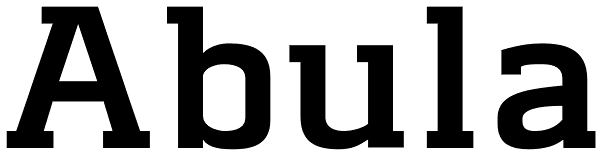
Abula
Structurally inspired by Modern font, Abula is distinctive for its two options: Original Slab Serif and Organic Slab Serif. The Latter is special for it illustrates the designer’s attempt to genetically modify the font. Beginning with the original...